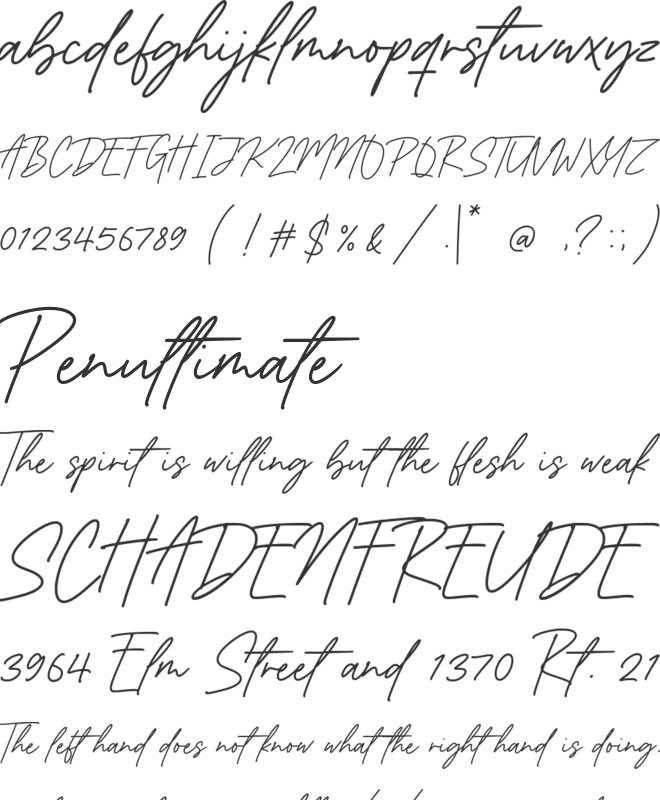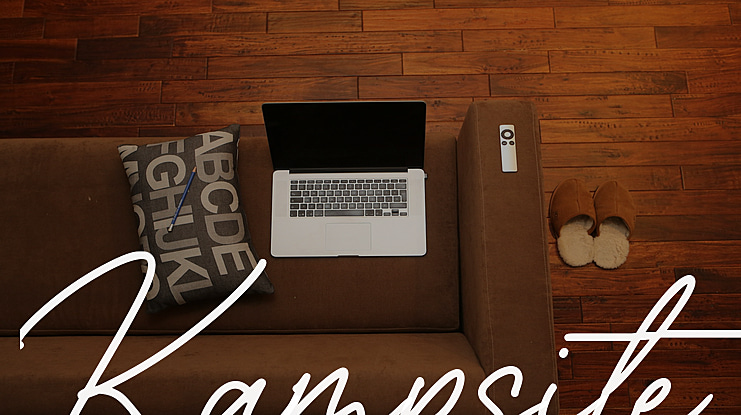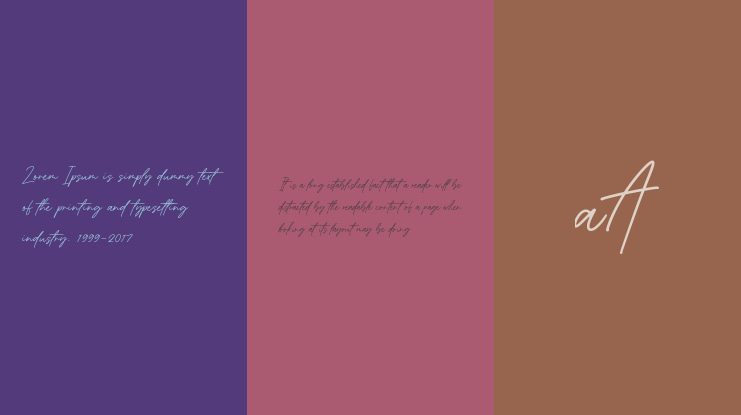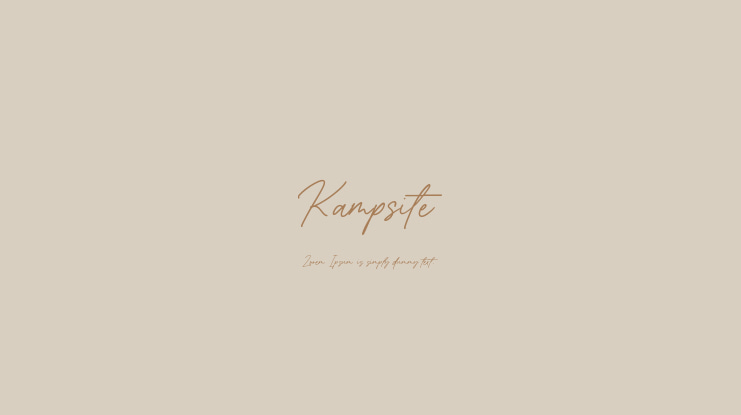
Kampsite Font
Balpirick Studio
Proudly Present, Kampsite Font.
Kampsite is a Modern Monoline calligraphy font.
Kampsite is perfect for product packaging, branding project, megazine, social media, wedding, or just used to express words above the background.